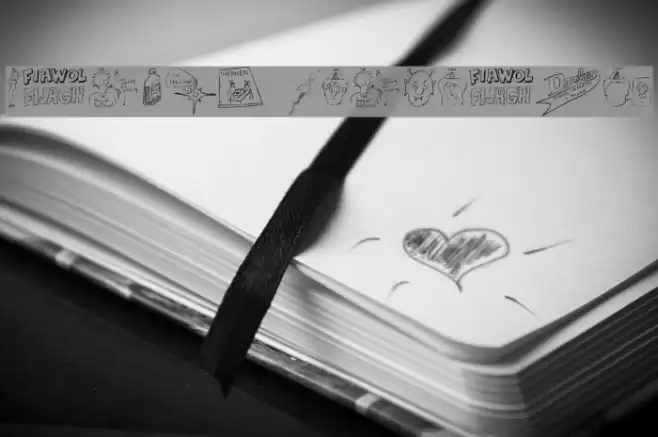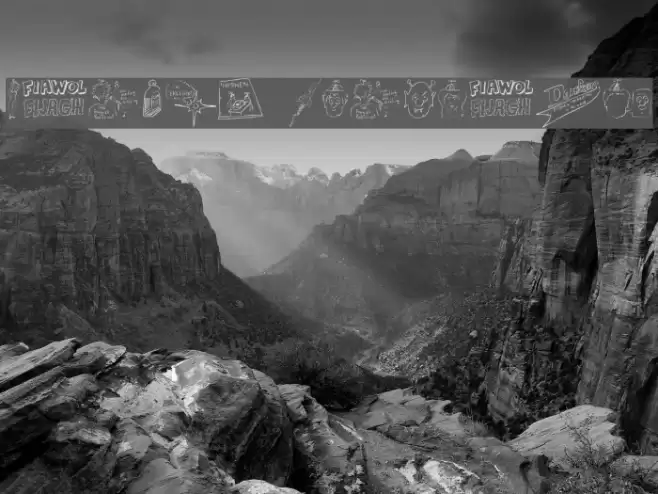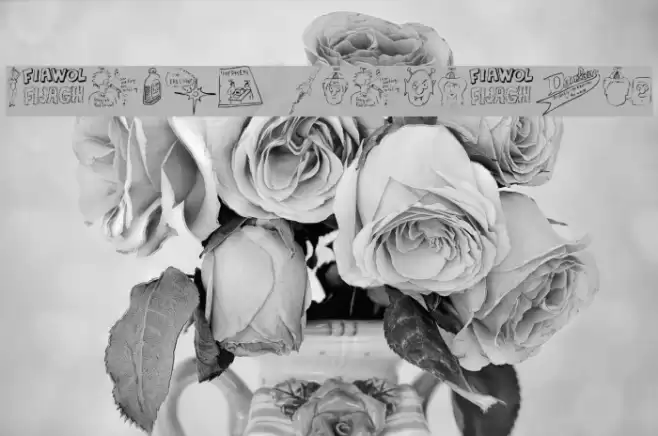
Fandom Dingbats Font
Fandom Dingbats Description
This set of dingbats features a whimsical collection of science fiction and fandom-themed illustrations. Each character is a playful depiction of classic sci-fi elements, including rockets, aliens, and quirky characters with exaggerated expressions. The style is cartoonish and humorous, with a hand-drawn quality that adds a personal touch. The illustrations are detailed, capturing the essence of fandom culture with references to well-known sci-fi tropes. The line work is clean and consistent, providing a cohesive look across the set. These dingbats are perfect for adding a fun and nostalgic element to any project related to science fiction or fan culture.
A playful set of sci-fi and fandom-themed dingbats with a cartoonish, hand-drawn style from Dingbats fonts.
- Proposed Projects: Ideal for fan magazines, sci-fi themed party invitations, comic books, and novelty merchandise.
- Overall Style: Cartoonish, Whimsical
- Use Case: Decorative elements, Themed designs